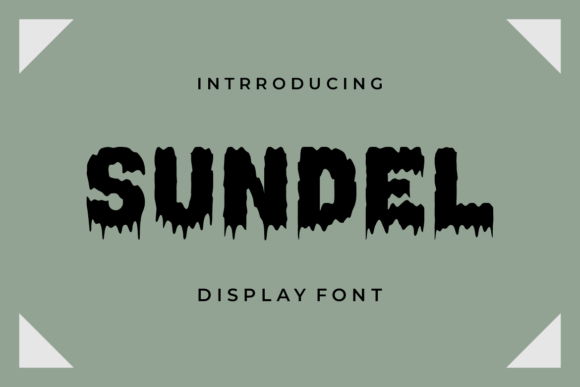
Sundel Font
Welcome to the realm of Sundel Font, where spookiness meets playful delight. This display font, a creation of maikofarazhatta, dances playfully between the eerie and the enchanting, making it an ideal companion for any Halloween endeavor. Brace yourself for a font that's both whimsical and a tad spooky, sure to leave a lasting impression on all who behold it.
Sundel Font is a typographical masterpiece, meticulously crafted to evoke the allure of Halloween with a touch of whimsy. Its unique character set exudes a playful yet eerie charm, perfect for capturing the essence of the season. Imagine crafting invitations that send shivers down the spine, or designing posters that evoke the thrill of a haunted house. With Sundel Font as your creative ally, the possibilities are endless.
With Sundel Font at your fingertips, unleash your creativity and conjure a world of spine-tingling designs. Create logos that ooze a sense of mystery, or craft website headers that invite visitors to embark on an eerie adventure. The versatility of Sundel Font allows you to weave it into a wide range of Halloween-themed projects, from invitations and posters to T-shirt designs and social media graphics.
Don't let this haunting font haunt you. Embrace its allure and let it bring a touch of Halloween magic to the world around you. Unleash your inner artist, explore the depths of your creativity, and let Sundel Font guide you on a journey of spooky delight.